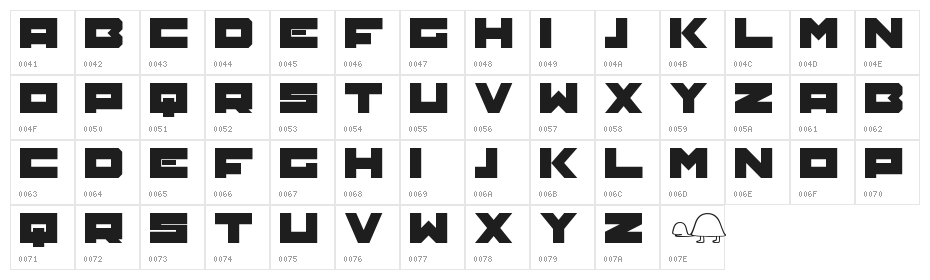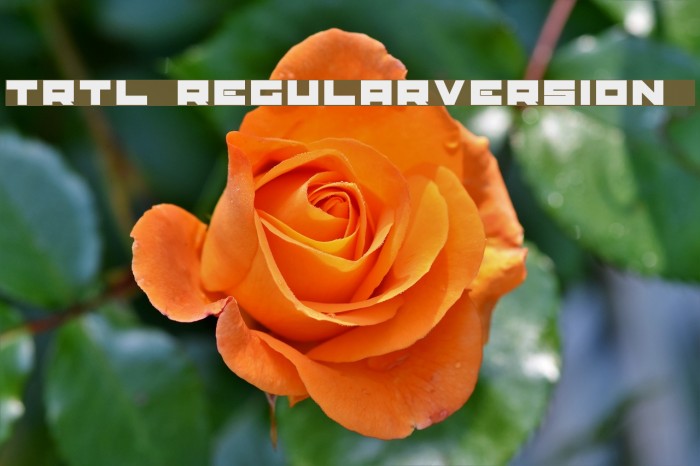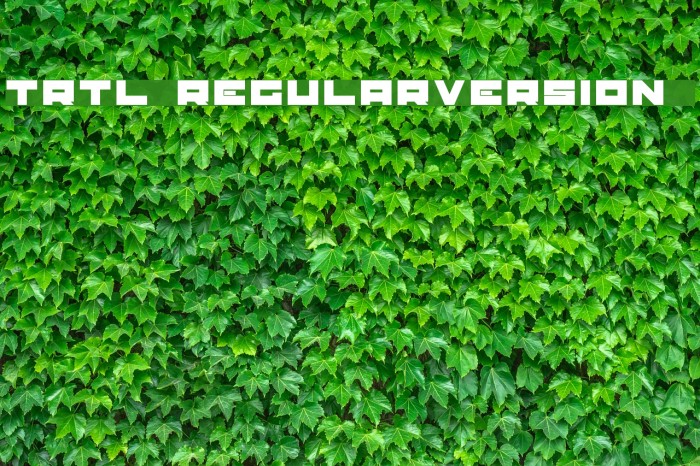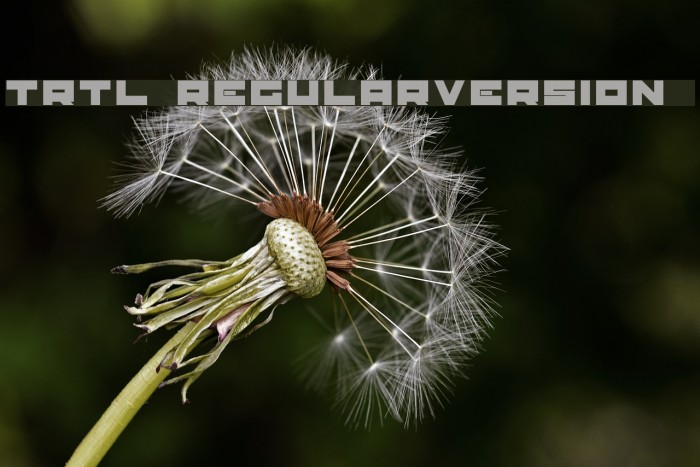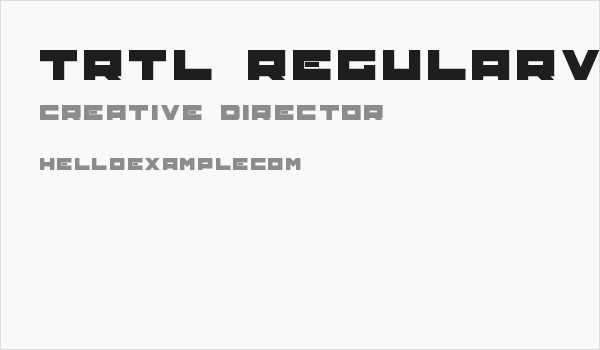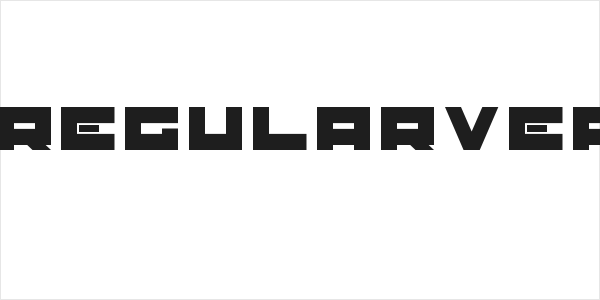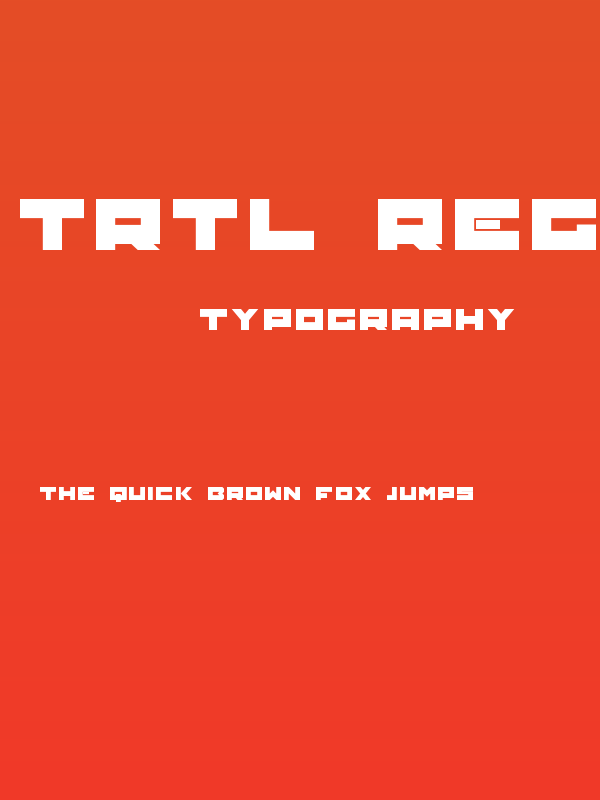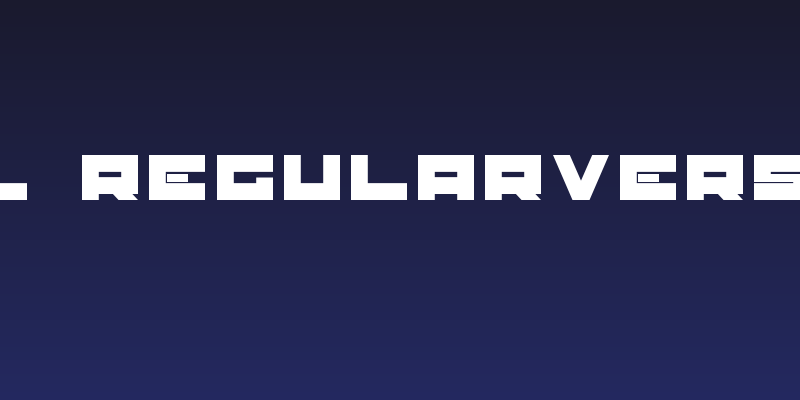
TRTL Regular:Version 1.00 Font
TRTL Regular:Version 1.00 Description
This font features a bold and geometric design with strong, angular lines and a modern aesthetic. The characters are constructed with a uniform thickness, giving them a solid and impactful presence. The uppercase letters are particularly striking, with a blocky and robust appearance that commands attention. The font maintains a consistent width across all characters, contributing to a cohesive and orderly look. Its design is reminiscent of industrial or futuristic styles, making it suitable for projects that require a bold and assertive typeface.
| Proposed Projects | Ideal for branding, posters, headlines, and any design that requires a strong, modern typeface. |